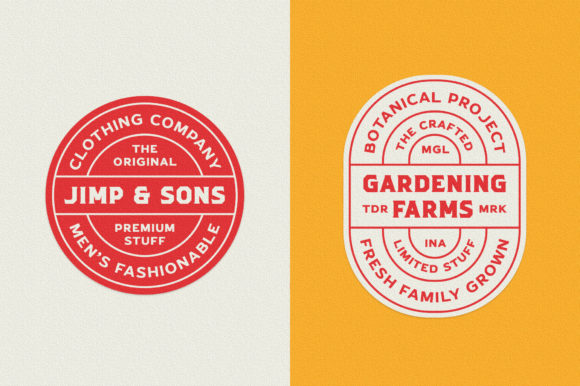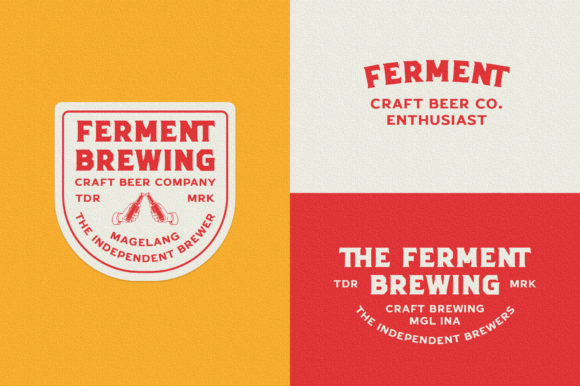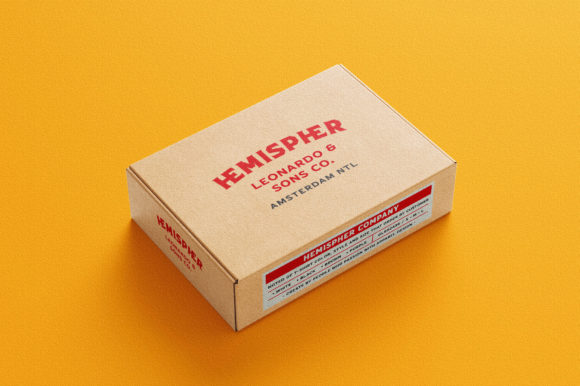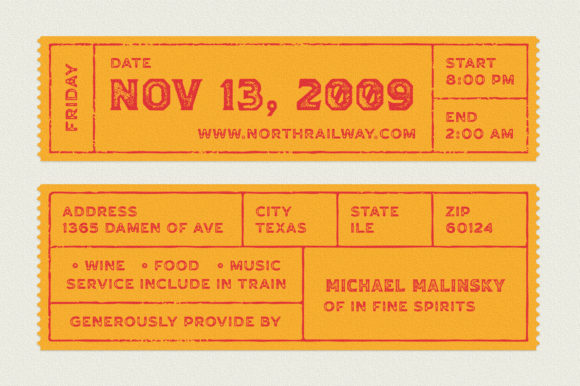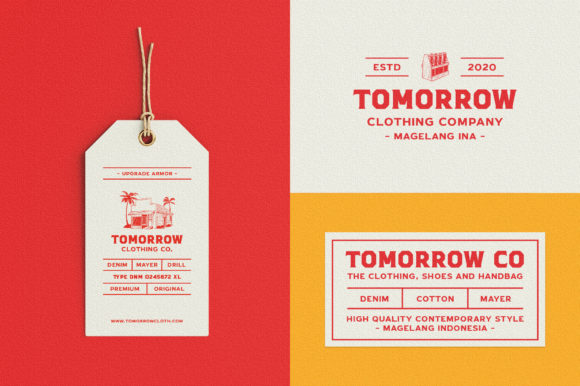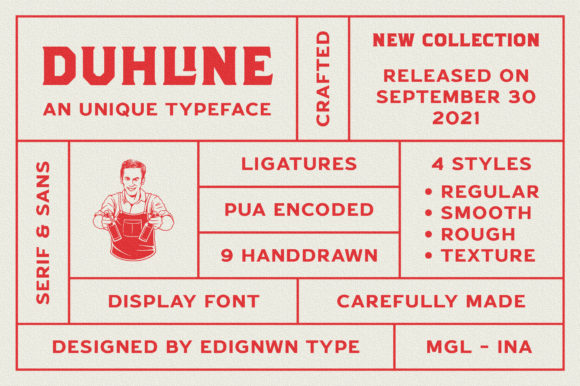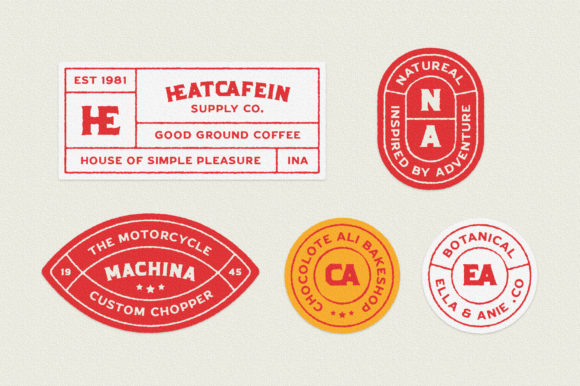
Duhline Font
Duhline is a versatile font collection that includes a display, serif, sans serif, and dingbats. With this lovely typeface, you can create the most amazing creative projects such as the logo,s posters, labels, badges, packaging, branding, quotes, and more custom designs.